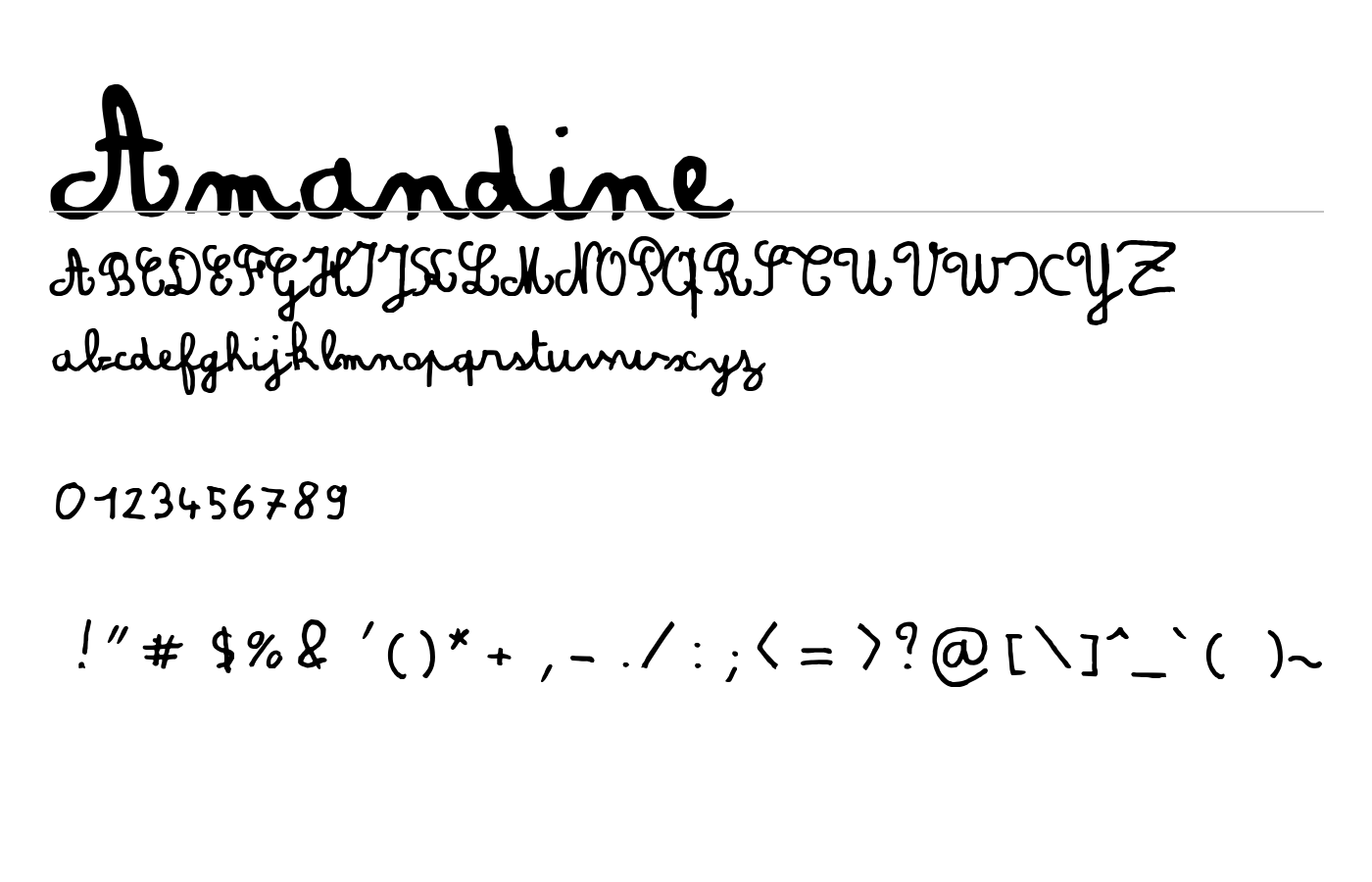
Amandine is a playful and handwritten-style font featuring lively, irregular strokes and unique letterforms that give it a casual, personal feel. Its thin, uneven lines and flowing curves create a charming, informal look perfect for friendly invitations, creative projects, and branding that seeks a warm, approachable vibe. This font works well in headlines, logos, and packaging where a touch of individuality and character is desired.
Amandine Font
About Amandine Font